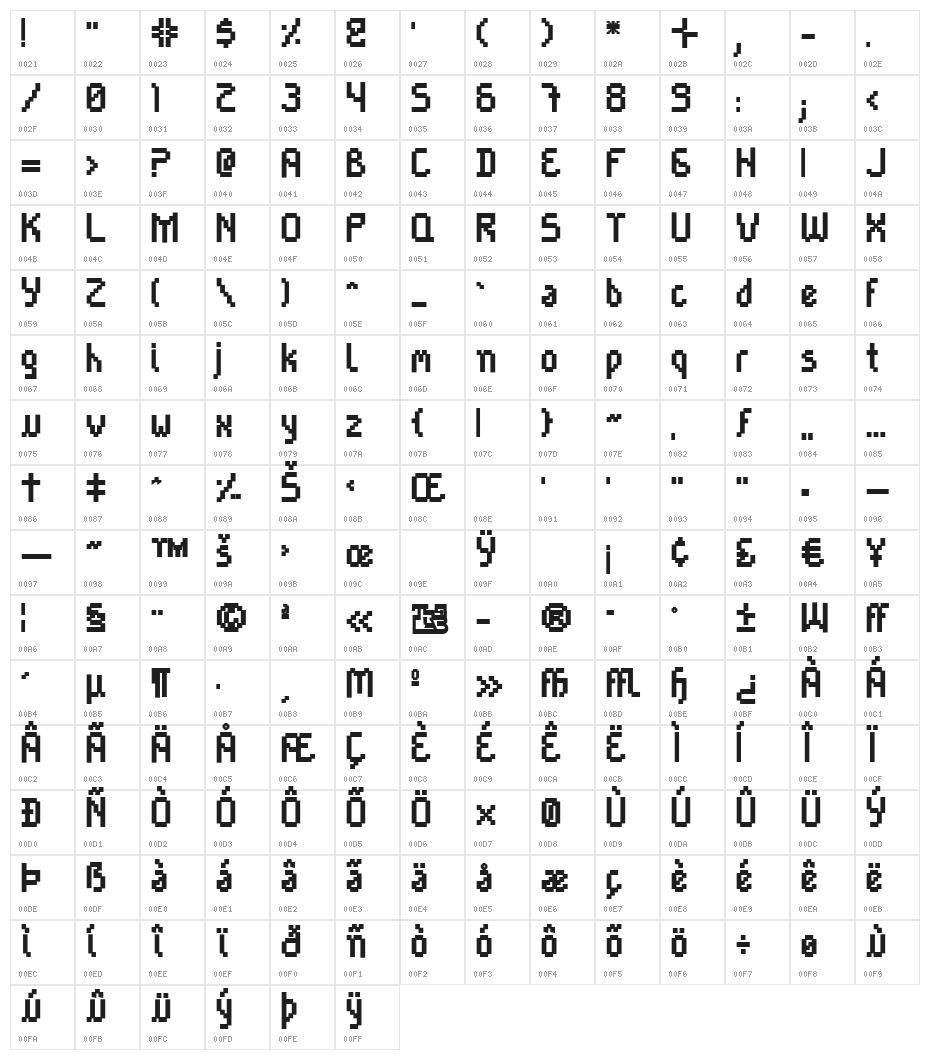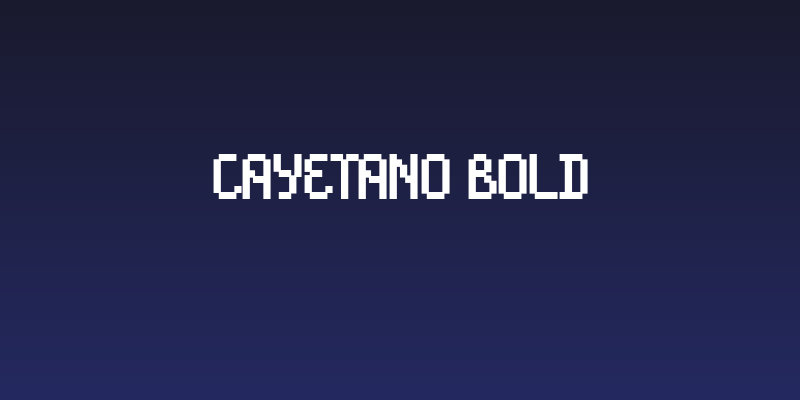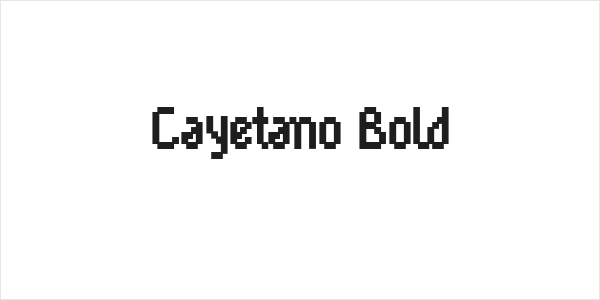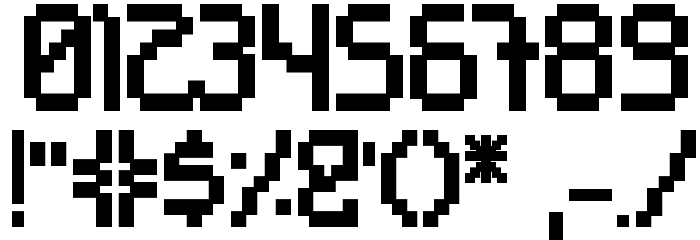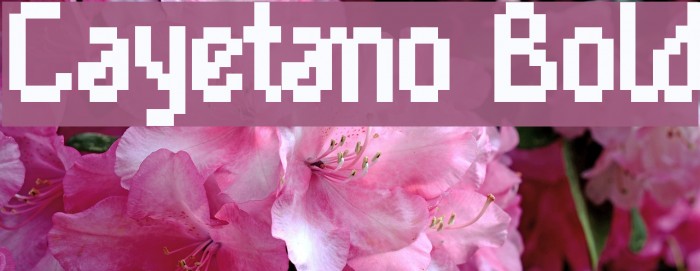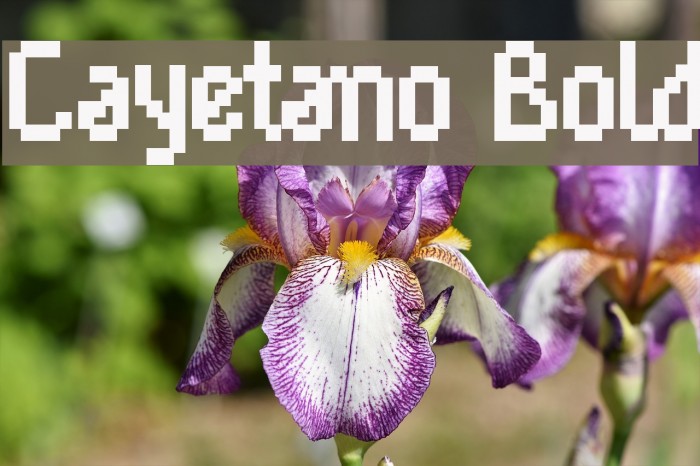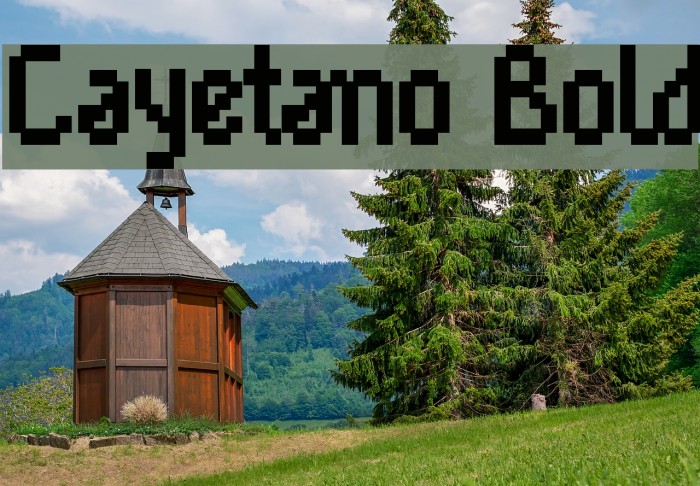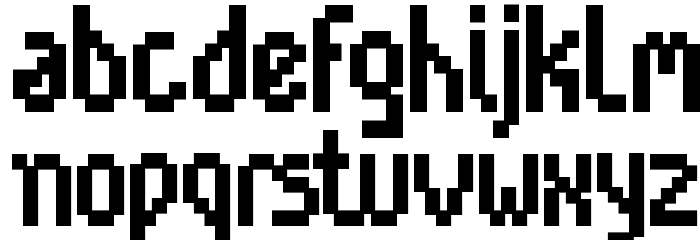
Cayetano Bold Font
Cayetano Bold Description
This font features a bold, pixelated style reminiscent of early digital displays and retro video games. Its blocky, geometric shapes give it a distinct, nostalgic feel, making it ideal for projects that aim to evoke a sense of the past or a digital aesthetic. The uppercase and lowercase letters maintain a consistent height, contributing to a uniform appearance. Numbers and special characters are designed with the same pixelated approach, ensuring cohesion across all elements. The font's simplicity and clarity make it highly legible, even at smaller sizes.
| Proposed Projects | Ideal for video game design, retro-themed posters, digital art, and tech-related branding. |